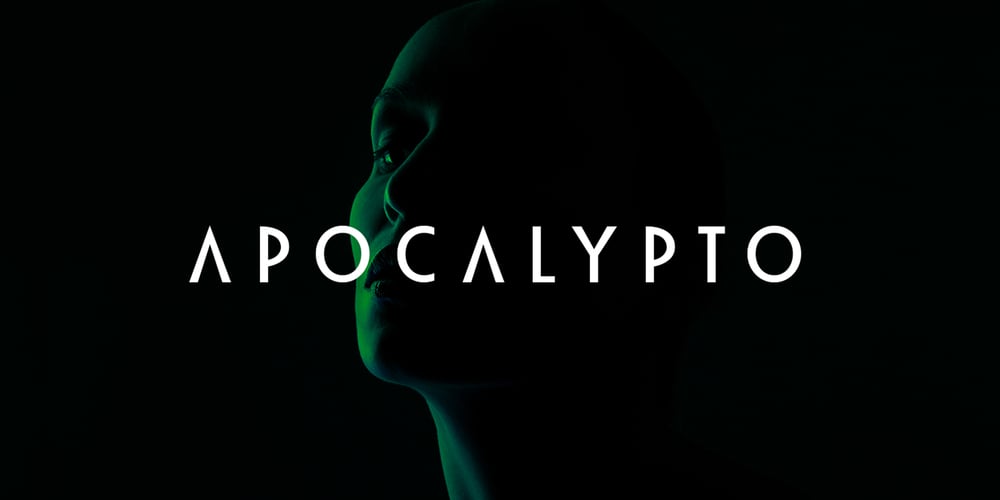
Apocalypto Display Font Family was designed by Evin Tony and published by FoxType. Apocalypto Display contains 14 styles and family package options. Apocalypto Display is a Unique Modern Elegant Typeface with Web-fonts. It’s a very versatile font that works great in large and small sizes. Apocalypto Font would perfect for branding, logos, headlines, Captions. or simply as a stylish text overlay to any background image. Strong capitals and a smooth, open lowercase are effective in a variety of applications. It’s shown a clean, minimalist, warmth, quirky, yet still purposed to be versatile and easy to read.07 Weights with 14 Styles Included. Free updates and feature additions.